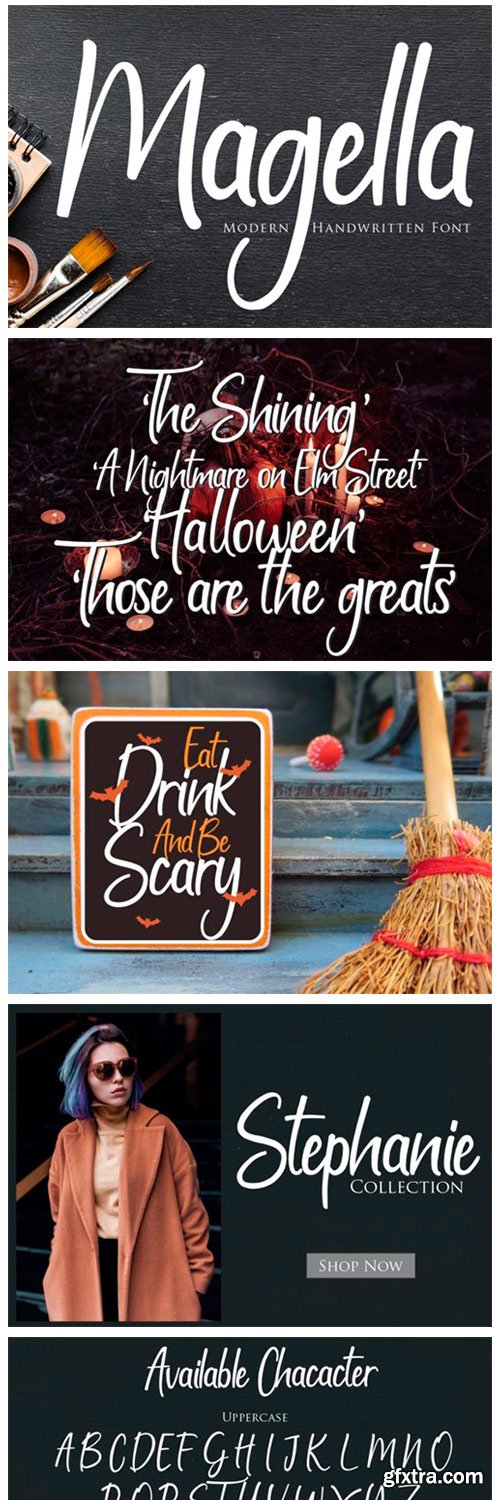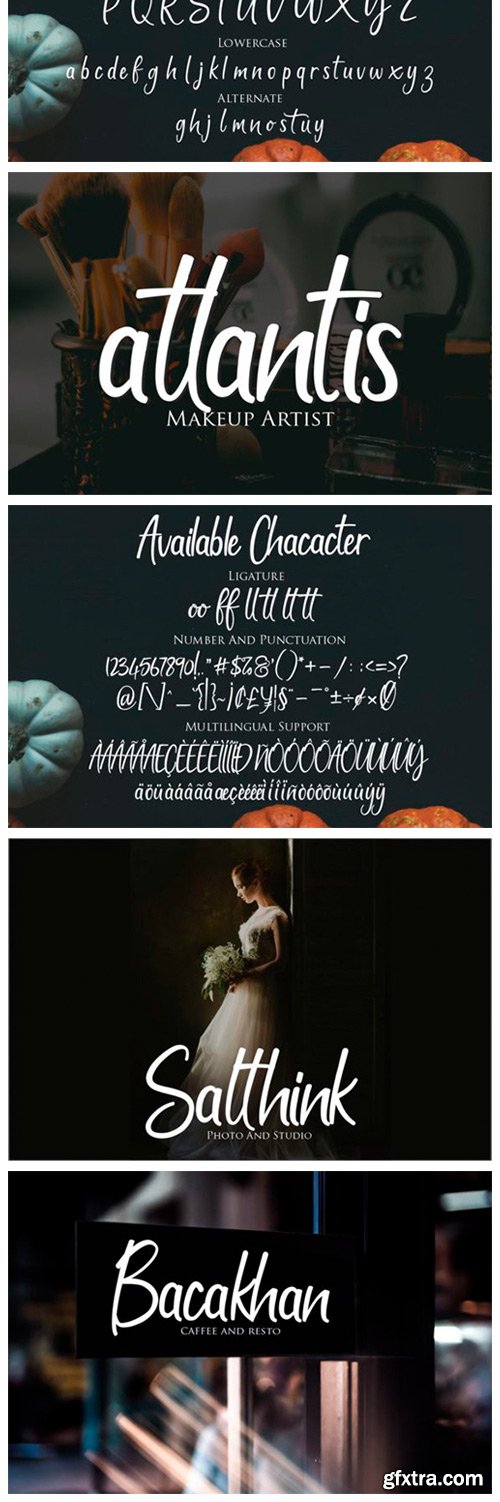
Magella Font
Magella is a flowing and refined script font. It has a modern, elegant and beautiful look that can be used for logos, branding, invitations, stationery, wedding designs, social media posts, and much more!